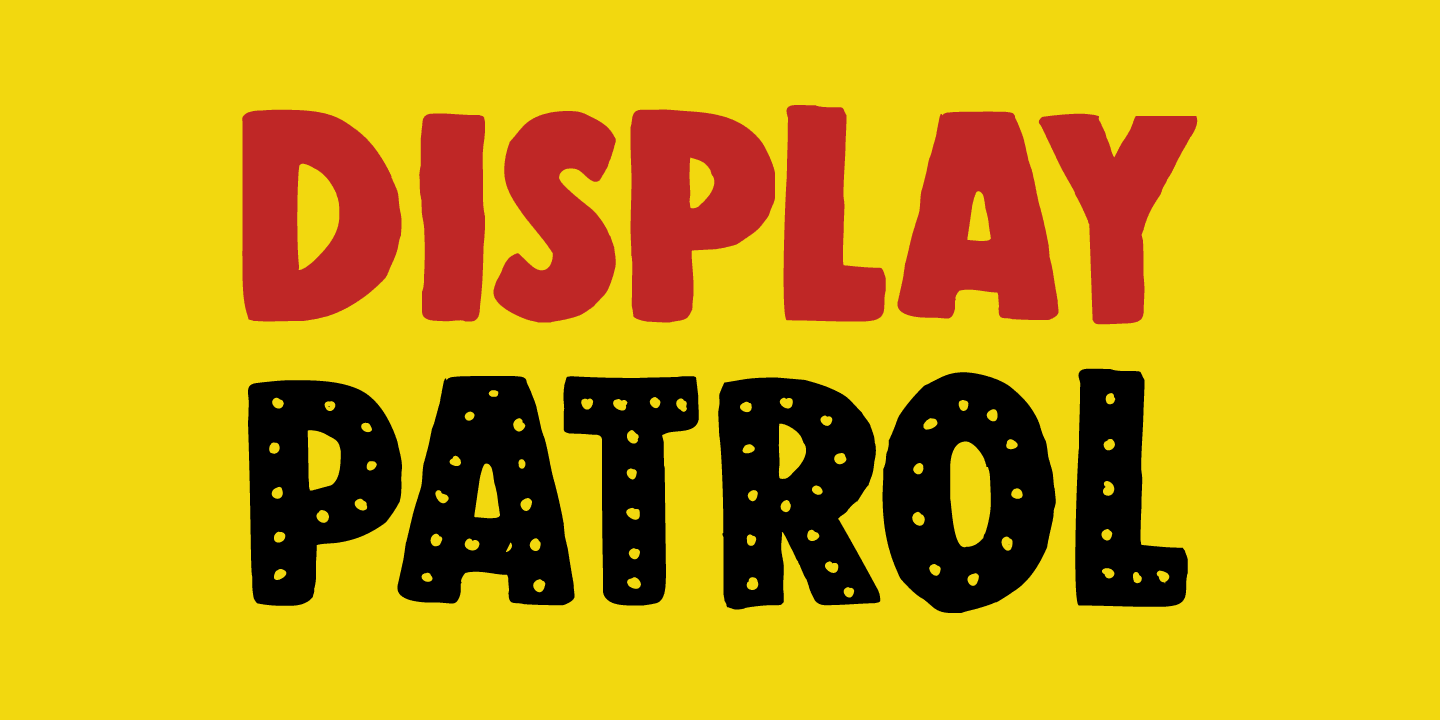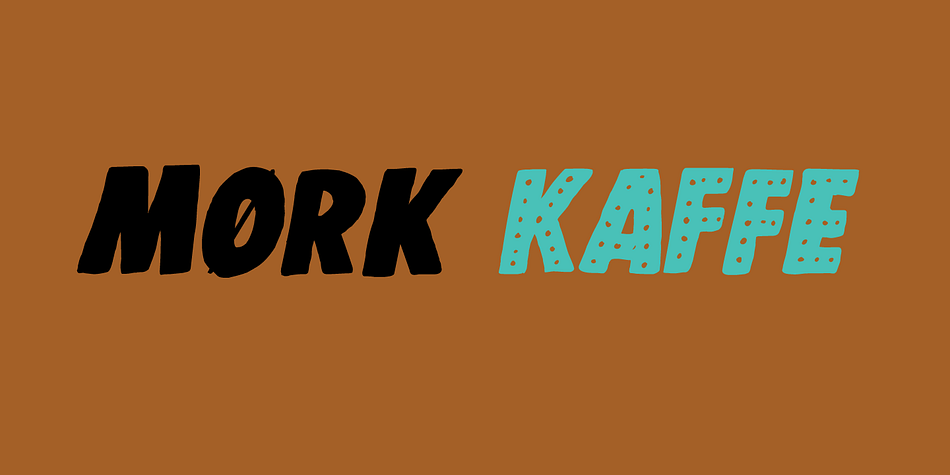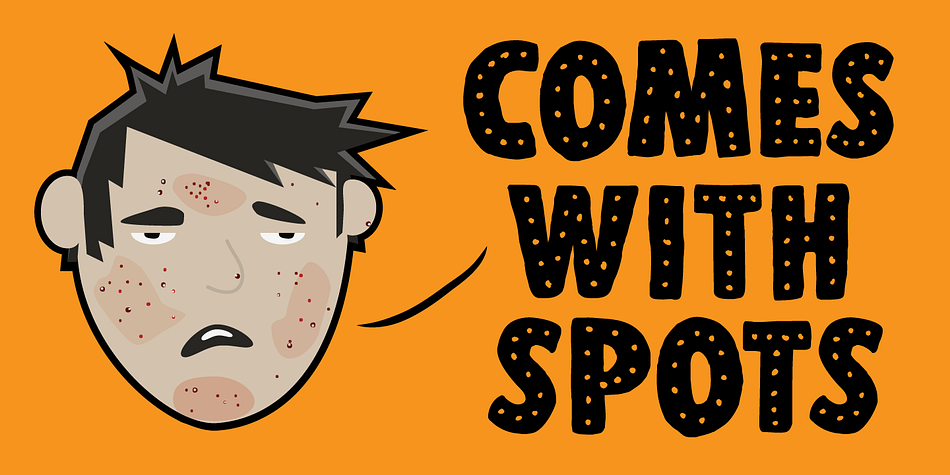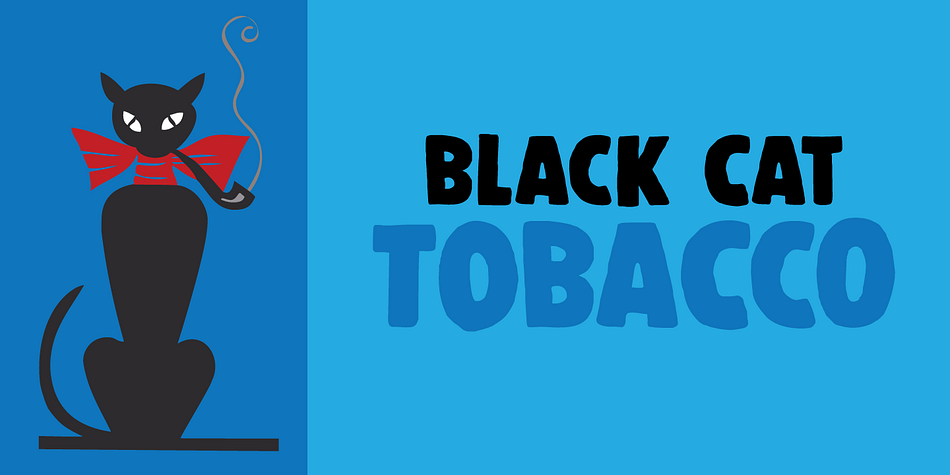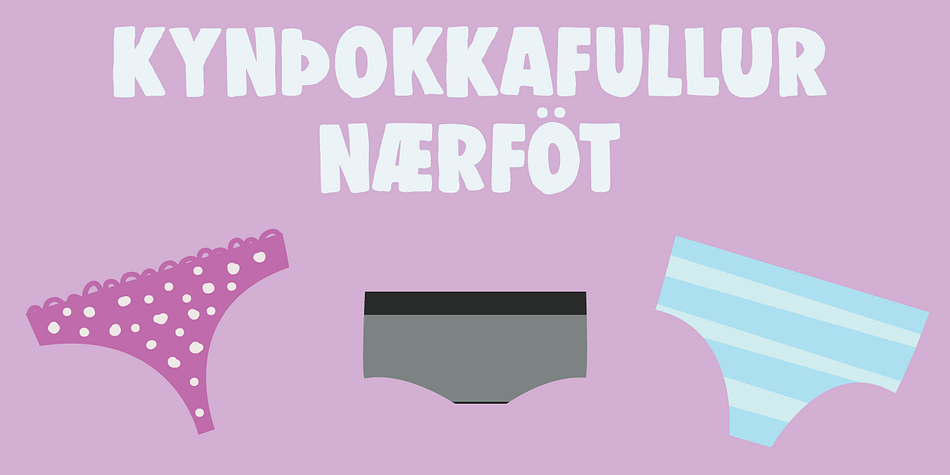
Designed by David Kerkhoff, Display Patrol is a display font family. This typeface has four styles and was published by Hanoded.
I have always liked handmade display fonts - maybe that’s why I have so many of them! Display Patrol is a rather fat, in your face font. It is completely handmade and comes in two distinct styles: regular and dots. Use it for your posters, books and product packaging. I am sure it will stand out!